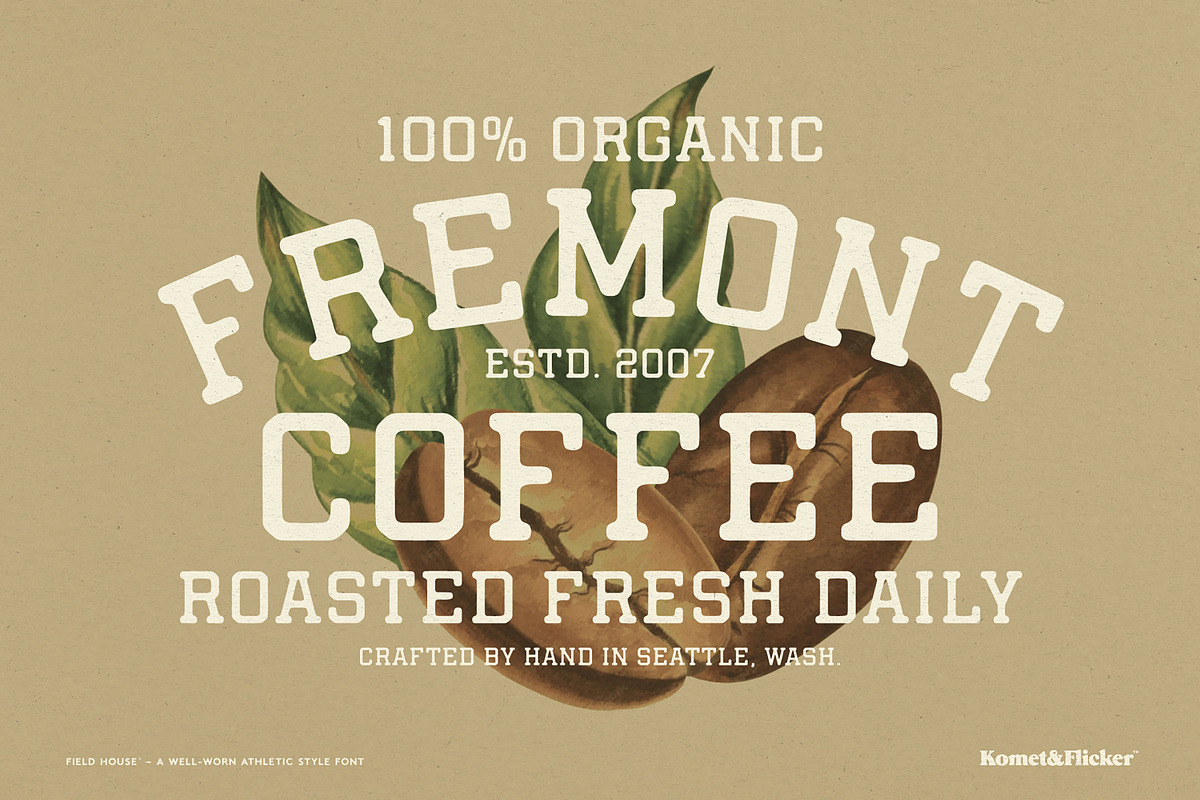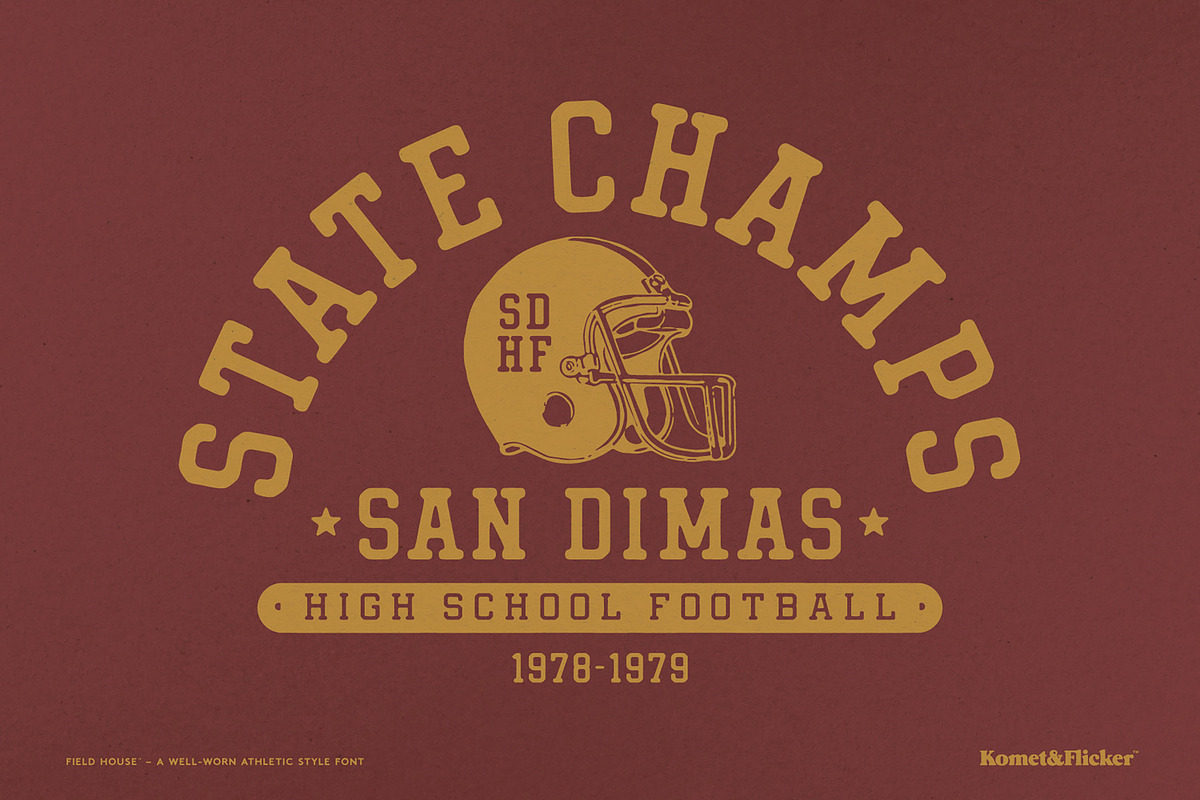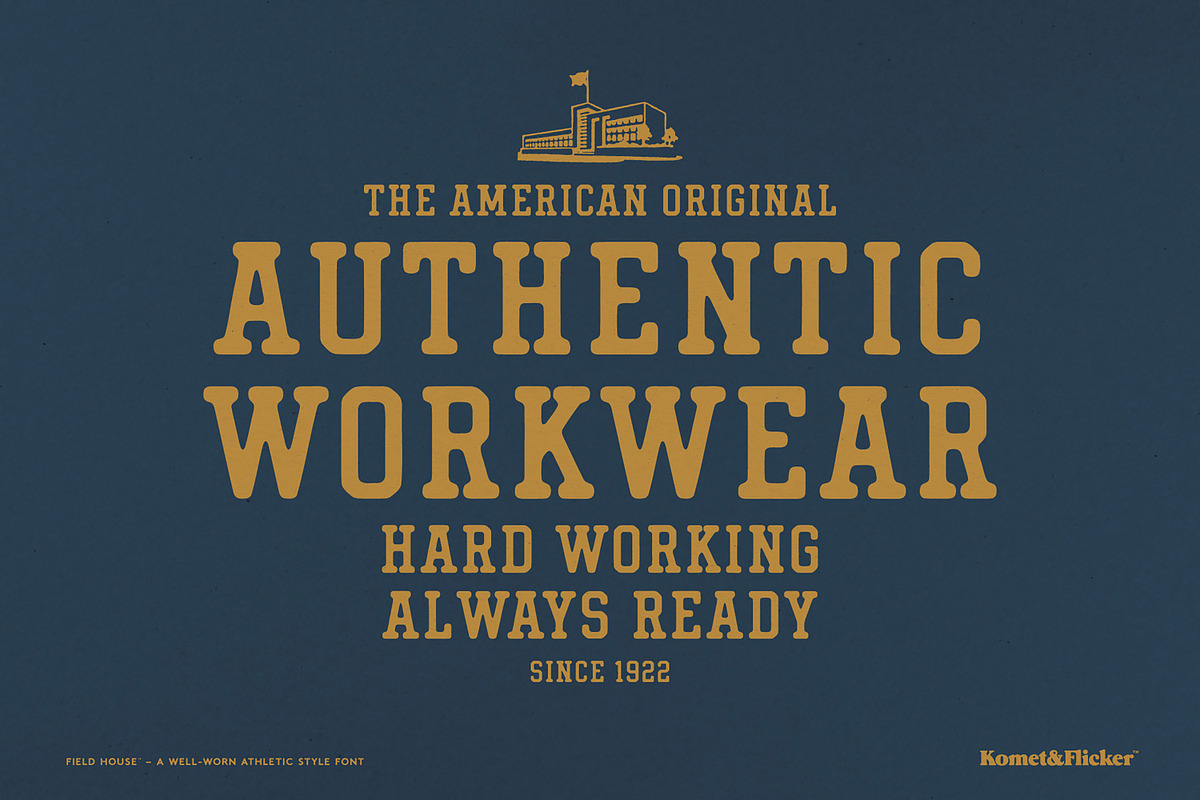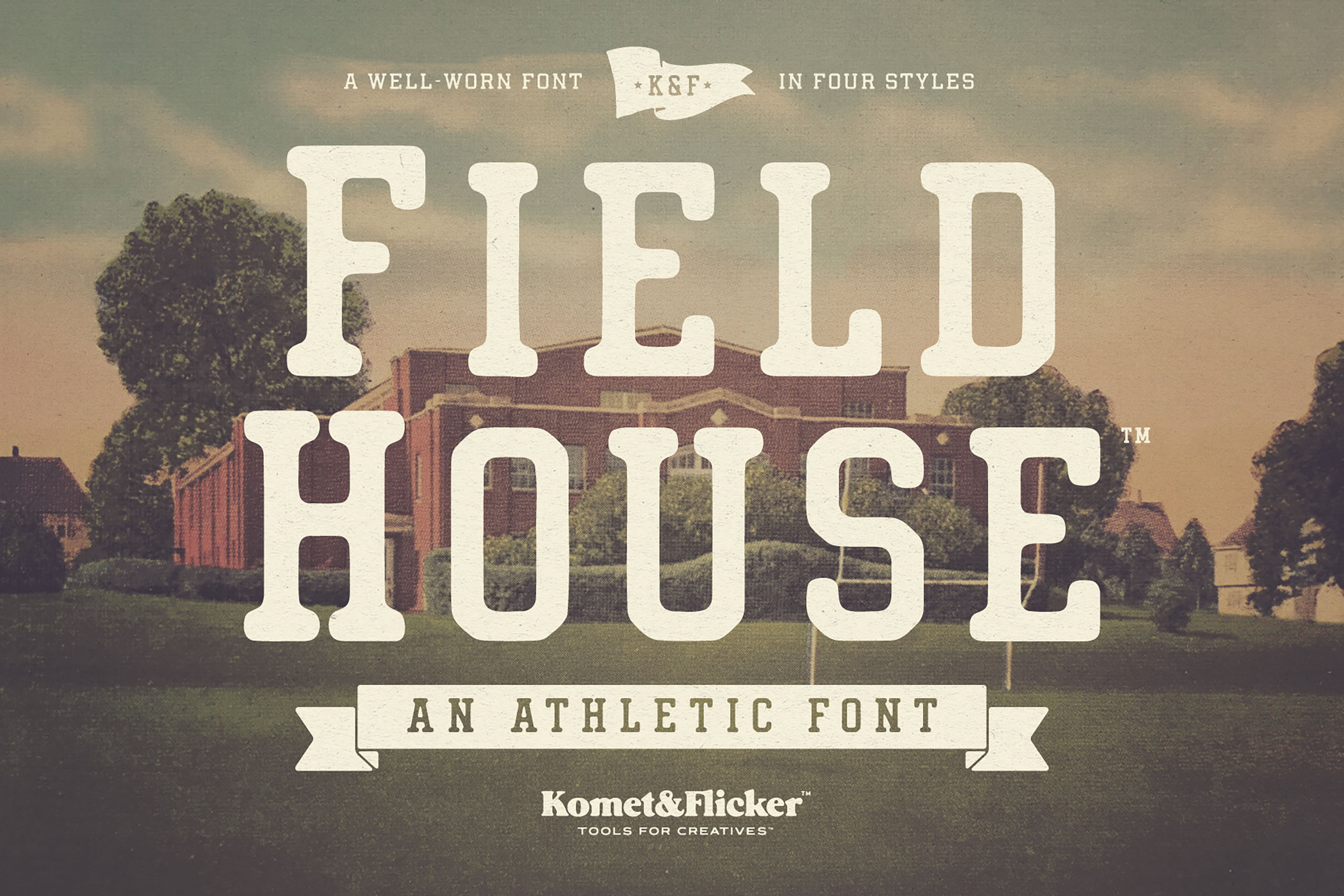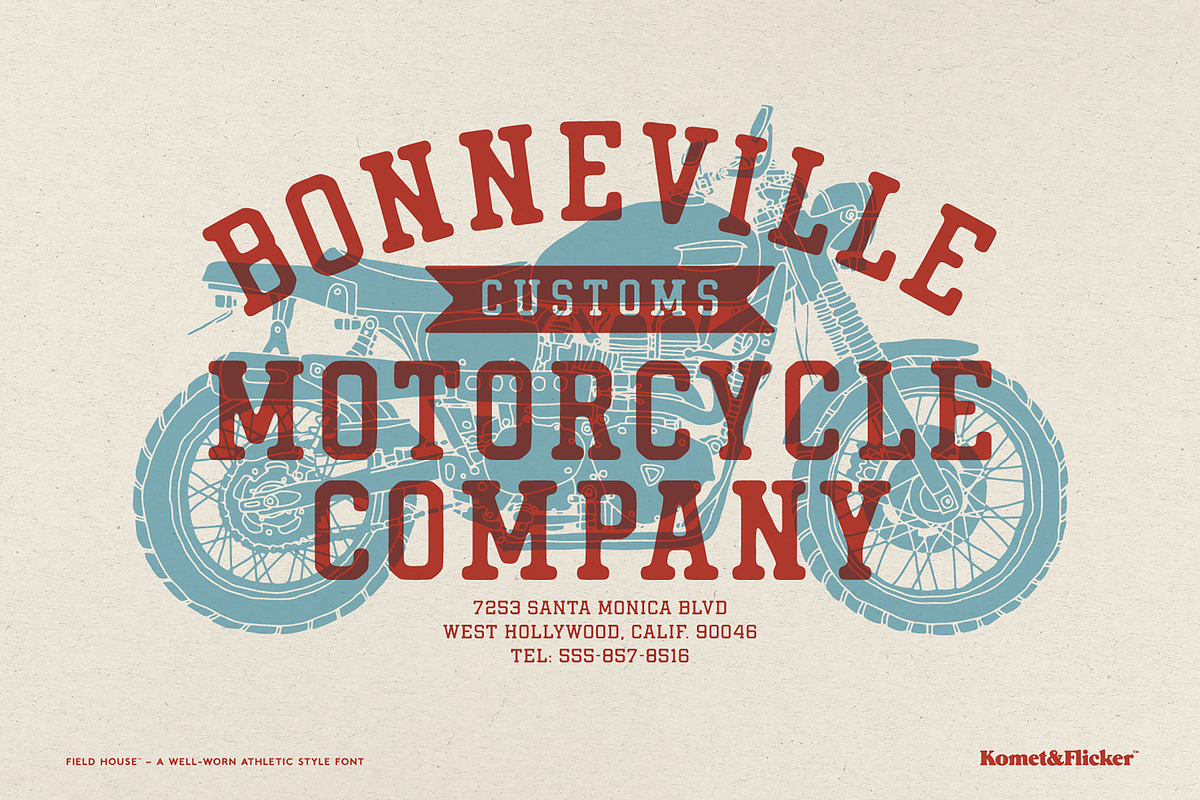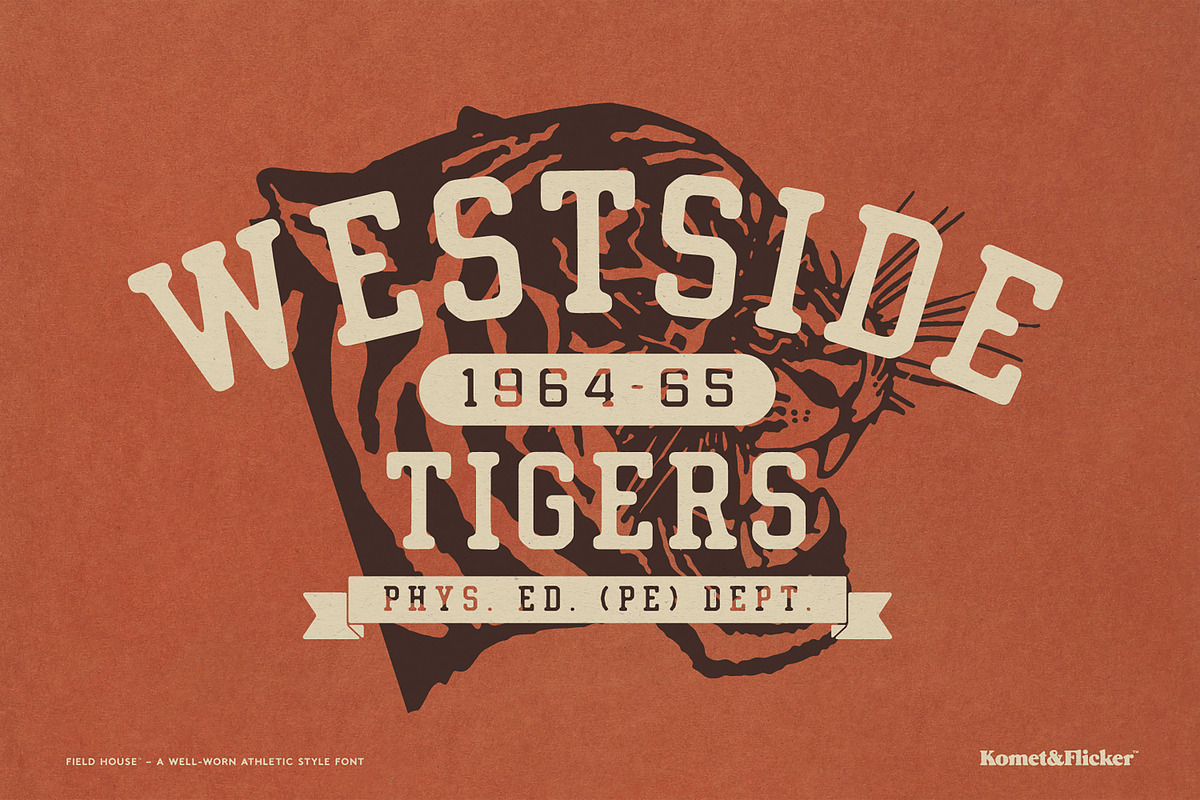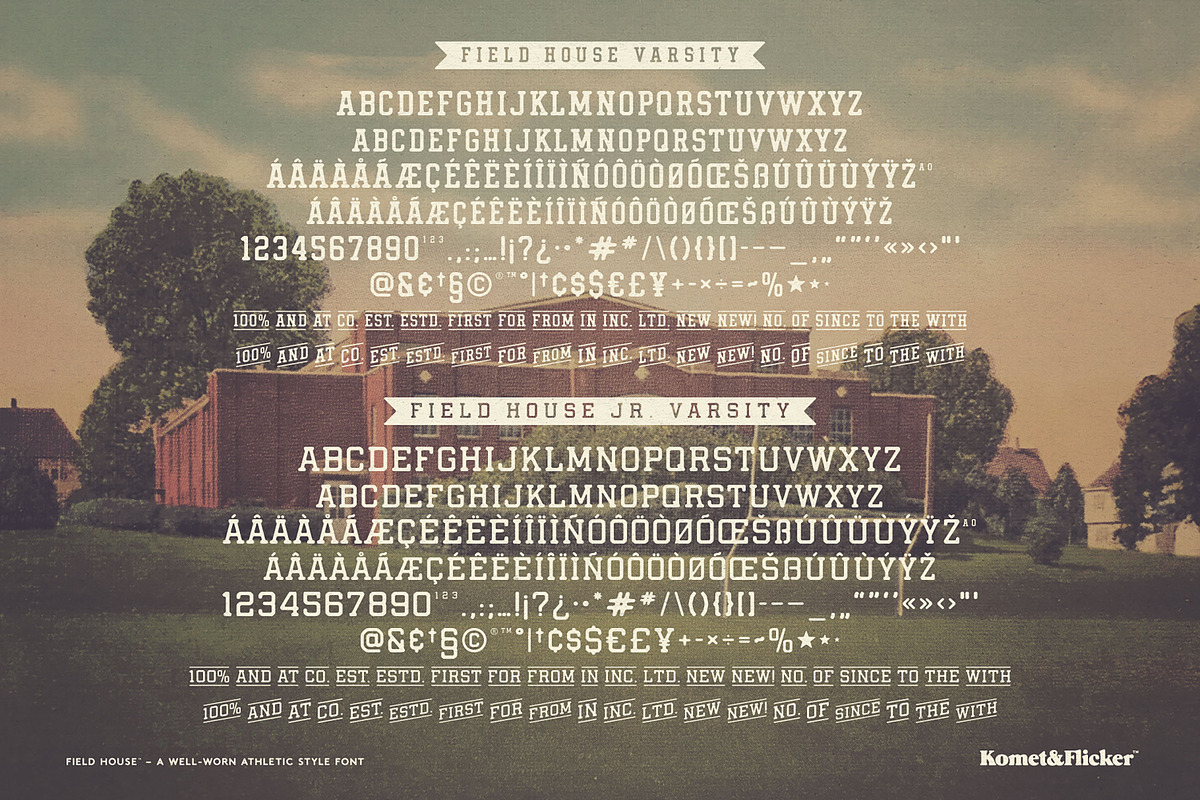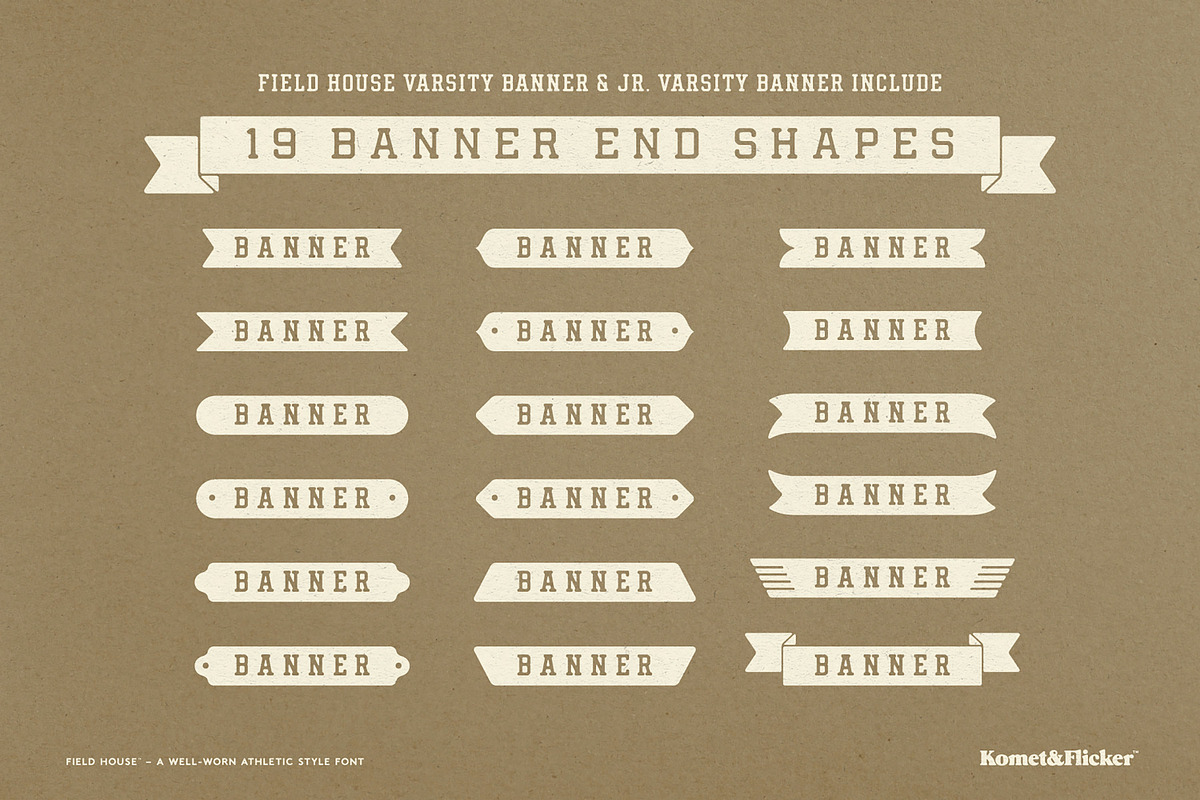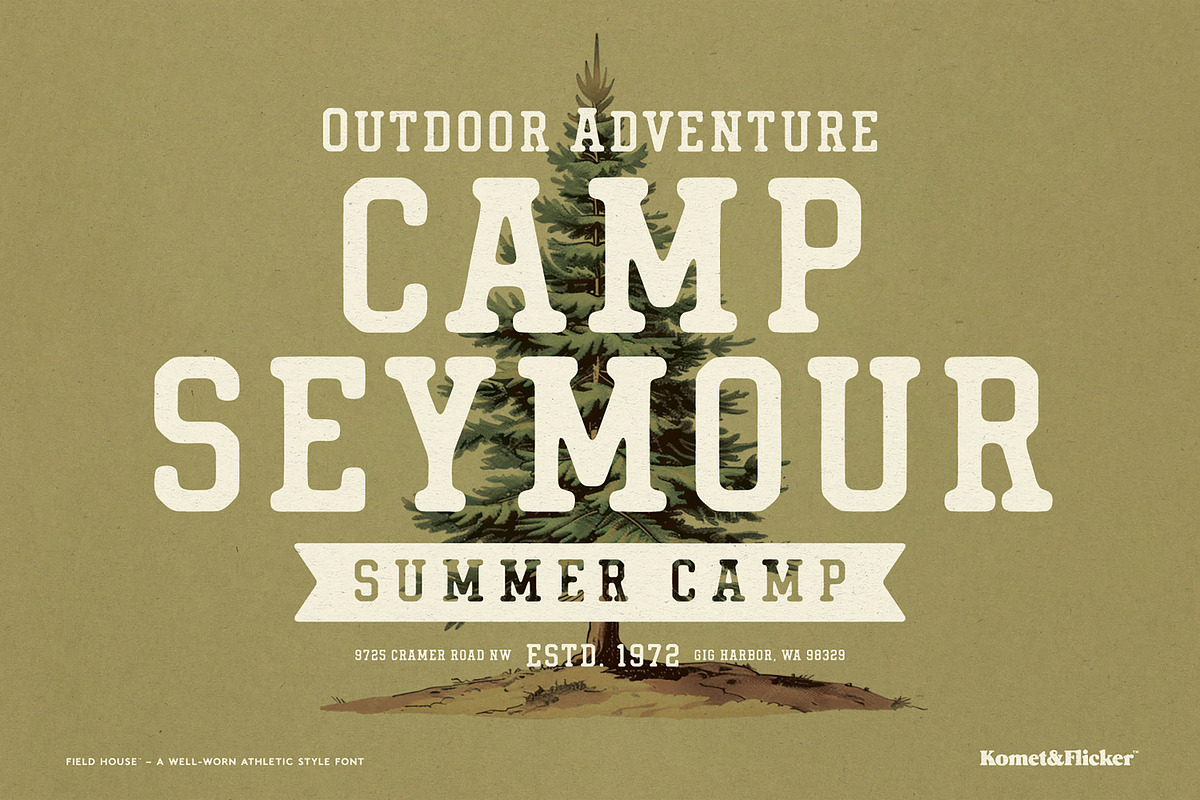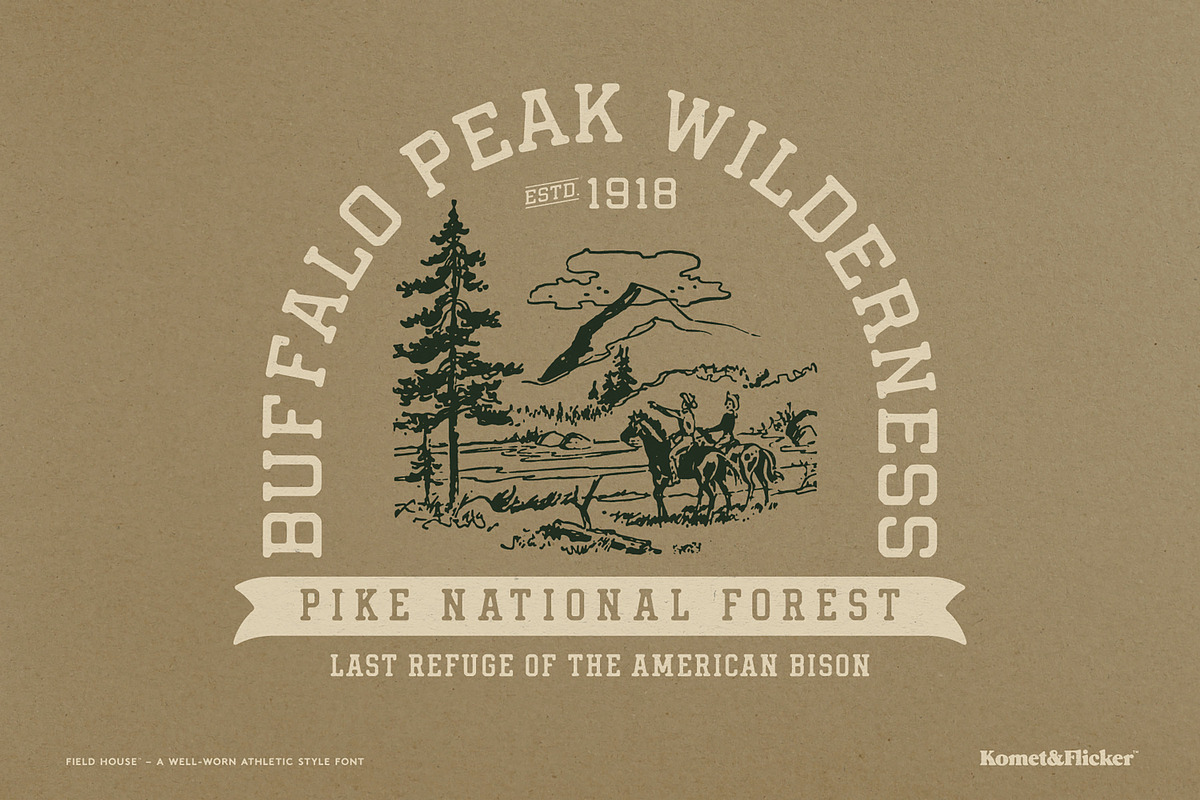
Field House - A Rustic Athletic Font
Introducing Field House, a family of four vintage athletic-style fonts that bring a rustic charm to your designs. This uppercase type family captures the essence of classic sports aesthetics, lending an authentic, well-worn feel that resonates with nostalgia.
Field House is ideal for vintage sports-themed designs, coffee shops, vintage apparel, and beer & spirits labels. Its unique character brings a touch of heritage to any project, evoking memories of classic athletic competitions.
The two banner versions of Field House make it easy to create custom text banners on the fly. Each includes a set of 19 unique banner end shapes (for both left and right sides), allowing you to mix and match for the perfect retro layout.
And to elevate your creative work even further, Field House includes a special set of 20 custom connecting words (in two styles for a total of 40 glyphs). Mix and match these additions to enhance the flow of your typography, ensuring that your designs feel cohesive and polished.
Cheer on the winning athletic spirit of yesteryear with Field House and imbue your designs with a touch of vintage charm!
The Field House font family includes four distinct styles:
Field House Varsity
Field House Varsity Banner
Field House Jr. Varsity
Field House Jr. Varsity Banner
THIS FONT INCLUDES
Full A-Z uppercase and small caps basic latin characters
Select European characters
Numbers, punctuation, and select symbols
Set of 40 custom connecting word glyphs